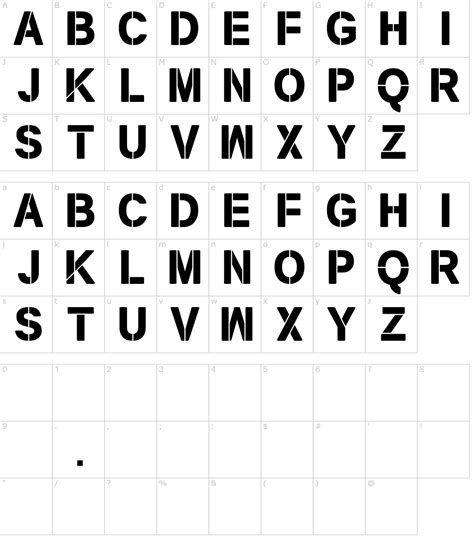
New Stencil TFB Font: A Comprehensive Guide
Are you looking to discover more about the new stencil TFB font ? This comprehensive guide dives deep into everything you need to know about this unique typeface. From its origins and design characteristics to its various applications and how to get your hands on it, we’ve got you covered. Whether you’re a seasoned designer or just starting, understanding the nuances of the new stencil TFB font can significantly enhance your creative projects. So, let’s jump right in and explore the fascinating world of this font!
What is the New Stencil TFB Font?
The new stencil TFB font is a typeface characterized by its distinctive stencil design. Stencil fonts, in general, are created by incorporating gaps or breaks within the letterforms, mimicking the appearance of letters cut out using a stencil. This design not only adds a unique aesthetic but also evokes a sense of industrial or military styling. The new stencil TFB font likely refers to a specific iteration or version of a stencil font developed by a particular designer or foundry known as TFB. Without additional context, TFB could stand for a design studio, a typographer’s initials, or even a project name. This particular font likely features unique characteristics that differentiate it from other stencil fonts available in the market. These characteristics might include the thickness of the strokes, the shape of the stencil gaps, the overall proportions of the letters, and the range of weights and styles offered. Understanding these elements is crucial for determining where and how to best utilize the font in your designs. The font’s design inherently brings a certain visual impact, making it suitable for headlines, posters, branding, and other applications where a bold statement is desired. Its origins might be rooted in historical stencil lettering used for military applications, industrial labeling, or even artistic expression. The new stencil TFB font is more than just a typeface; it’s a design element that carries a story and a specific visual weight, contributing to the overall message and feel of a project.
Key Characteristics of the New Stencil TFB Font
When diving into the key characteristics of the new stencil TFB font , it’s essential to consider several aspects that make it unique. First and foremost is the stencil design . The breaks and gaps within the letterforms are deliberately crafted to create a visual effect reminiscent of traditional stenciling methods. The size, shape, and placement of these gaps significantly impact the font’s readability and overall aesthetic appeal. A well-designed stencil font balances the need for visual interest with the practical requirement of legibility, especially at smaller sizes. The stroke weight is another critical characteristic. Thicker strokes generally convey a bolder, more robust feel, making the font suitable for headlines and titles. In contrast, thinner strokes can offer a more delicate and refined appearance, potentially making the font suitable for body text or more subtle design applications. The proportions of the letters also play a significant role. Some stencil fonts feature condensed letterforms, which can be useful for fitting more text into a limited space, while others have expanded letterforms that create a wider, more open appearance. The new stencil TFB font will have its own unique proportions, contributing to its distinct personality. Furthermore, the availability of different weights and styles (such as bold, italic, and condensed) greatly enhances the font’s versatility. A comprehensive font family will offer a range of options, allowing designers to use the new stencil TFB font in various contexts while maintaining a consistent visual identity. Lastly, consider the overall aesthetic and feel of the font. Does it evoke a sense of industrial strength, military precision, or artistic flair? Understanding the intended mood and message of the font is crucial for selecting it for the right project. By carefully evaluating these key characteristics, designers can make informed decisions about how to effectively use the new stencil TFB font in their work.
Applications of the New Stencil TFB Font
Exploring the applications of the new stencil TFB font reveals its versatility across various design projects. Due to its distinctive and eye-catching design, this font excels in headline and title applications. Imagine a striking poster for a music festival or a bold title for a magazine article – the new stencil TFB font can instantly grab attention and convey a sense of edgy style. Its inherent visual weight makes it perfect for making a statement. In the realm of branding , the new stencil TFB font can be used to create a strong and memorable visual identity. Think about logos, business cards, and website headers. A company aiming to project an image of strength, innovation, or industrial chic might find this font to be an ideal choice. However, it’s important to consider the specific brand values and target audience to ensure the font aligns with the overall brand message. For posters and signage , the new stencil TFB font is particularly effective. Its stencil design ensures that the text stands out, even from a distance. This makes it suitable for promotional materials, wayfinding systems, and other applications where clear and impactful communication is essential. In the packaging design world, the new stencil TFB font can add a unique touch to product labels and boxes. Whether it’s a craft beer, a line of industrial tools, or a collection of urban-inspired clothing, this font can help create a cohesive and visually appealing brand aesthetic. Beyond these commercial applications, the new stencil TFB font can also be used in artistic and creative projects . From graphic design compositions to digital art installations, its distinctive look can add a layer of depth and intrigue. Designers might experiment with layering the font, combining it with other typefaces, or using it in unconventional ways to create unique visual effects. When considering the applications of the new stencil TFB font , it’s important to balance its bold aesthetic with the overall design context. Overusing the font can lead to visual clutter, while using it sparingly and strategically can create a powerful impact.
Tips for Using the New Stencil TFB Font Effectively
Now that you’ve got the new stencil TFB font installed and ready to go, let’s talk about how to use it effectively . Using any font well requires a bit of finesse, and this stencil font is no exception. One of the most important tips is to use it sparingly . Because of its bold and distinctive design, the new stencil TFB font can easily overpower a design if overused. Reserve it for headlines, titles, logos, or other key elements where you want to make a strong statement. Avoid using it for large blocks of body text, as the stencil gaps can reduce readability and tire the eyes. Consider the context in which you’re using the font. Is it for a military-themed project, an industrial design, or an artistic endeavor? The font’s aesthetic should align with the overall theme and message of your design. Think about the colors, imagery, and other design elements you’re using, and make sure they complement the new stencil TFB font . Experiment with different sizes and weights to see what works best. A larger font size will accentuate the stencil gaps, while a smaller size may make them less noticeable. If the font family includes different weights (such as bold, light, or regular), try them out to see which one best suits your needs. Pay attention to letter spacing and kerning . Stencil fonts can sometimes require adjustments to the letter spacing to ensure optimal readability. Adjust the kerning (the space between individual letters) to create a balanced and visually appealing appearance. Combine it with other fonts strategically. Pairing the new stencil TFB font with a simpler, more neutral typeface can create a visually interesting contrast. For example, you might use the stencil font for headlines and a clean sans-serif font for body text. When choosing a complementary font, consider its weight, style, and overall aesthetic to ensure it harmonizes with the stencil font. Finally, don’t be afraid to experiment and break the rules . While these tips can help you use the new stencil TFB font effectively, the best way to learn is to try it out in different scenarios and see what works best for you. Trust your instincts and have fun with it!
In conclusion, the new stencil TFB font is a powerful and versatile typeface that can add a unique touch to a wide range of design projects. Its distinctive stencil design, characterized by intentional gaps and breaks in the letterforms, evokes a sense of industrial strength, military precision, and artistic flair. Understanding the key characteristics of the font, such as its stroke weight, letter proportions, and available styles, is crucial for using it effectively. Whether you’re designing a bold headline, creating a memorable logo, or crafting eye-catching packaging, the new stencil TFB font can help you make a statement. Remember to use it sparingly, consider the context, and experiment with different sizes and weights to achieve the desired effect. By combining it strategically with other fonts and paying attention to letter spacing and kerning, you can create visually appealing and impactful designs. Finding and downloading the new stencil TFB font requires navigating reputable online font foundries and design communities, while always exercising caution to avoid untrustworthy sources. Once you’ve installed the font, the possibilities are endless. So, go ahead and explore the creative potential of the new stencil TFB font and elevate your designs to the next level. Whether you’re a seasoned designer or just starting, this font is sure to become a valuable addition to your typographic toolkit. Happy designing, folks!